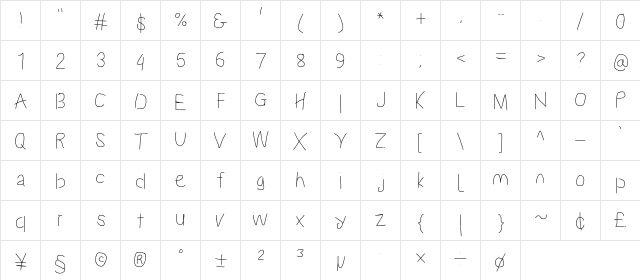
Proton Rg Font Preview
Proton Rg
Proton Rg Font Details
Design Context for Proton Typeface
Proton is a composed and adaptable typeface that performs quietly and consistently across a wide range of design contexts.